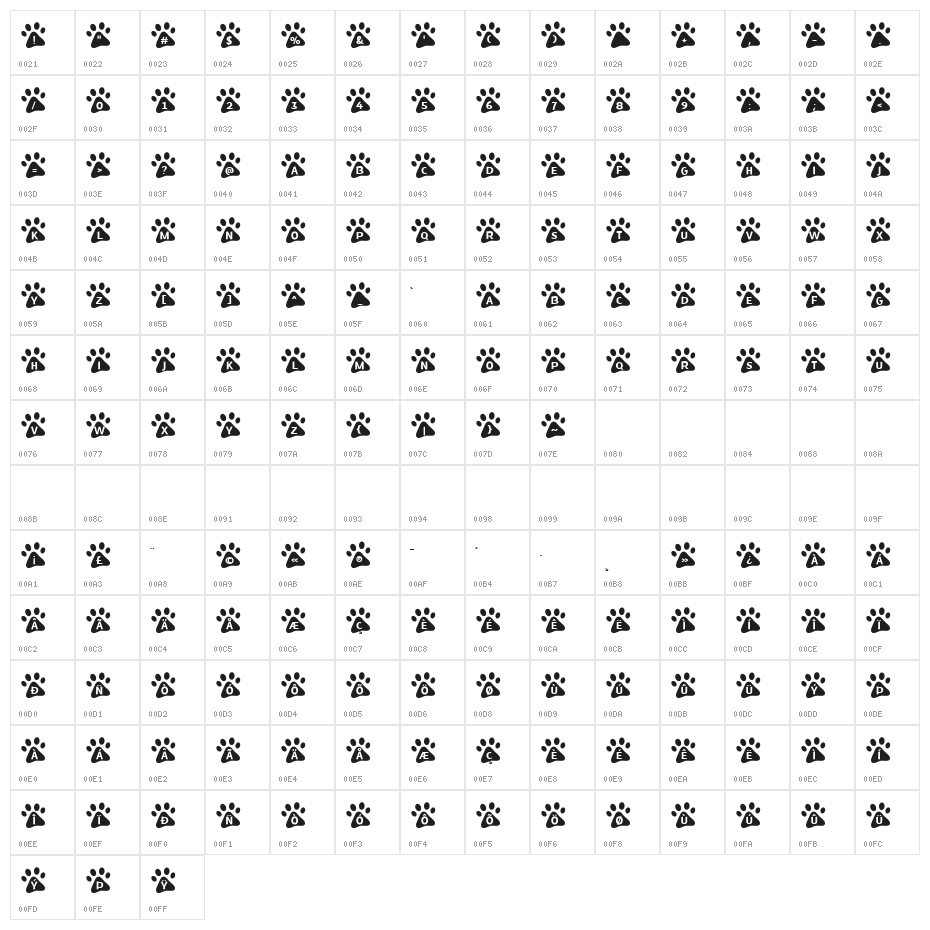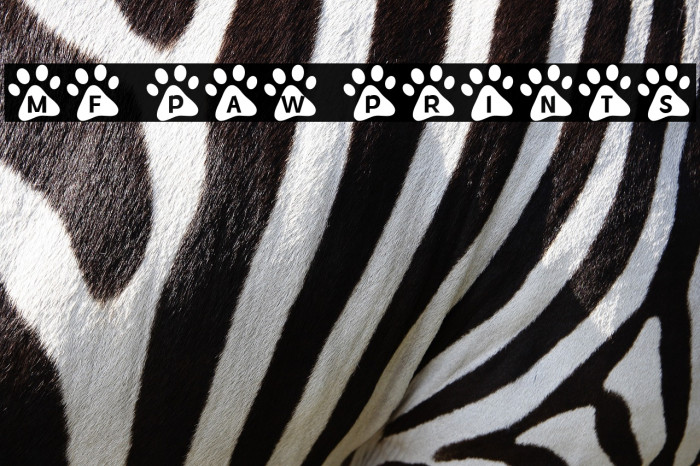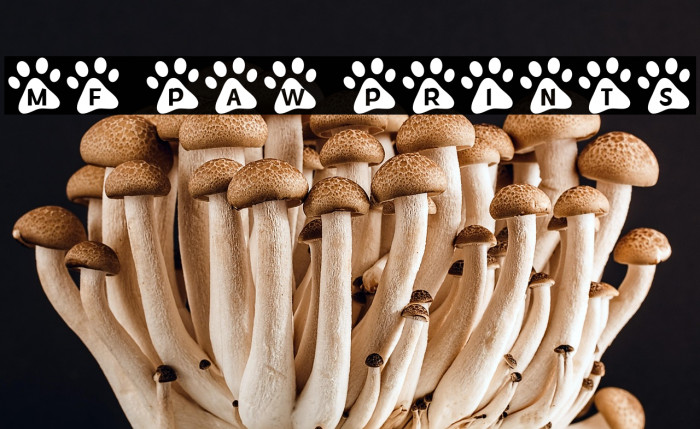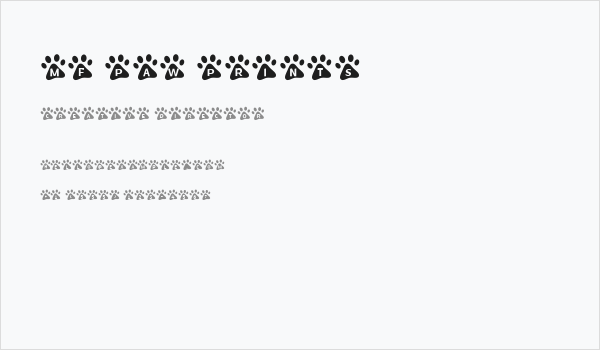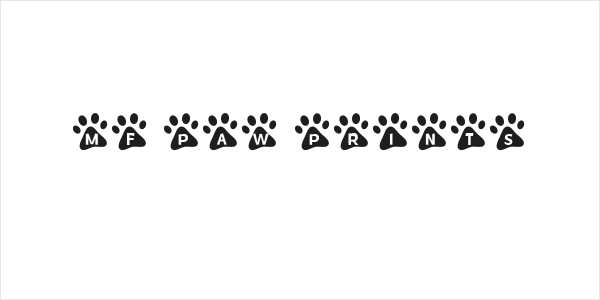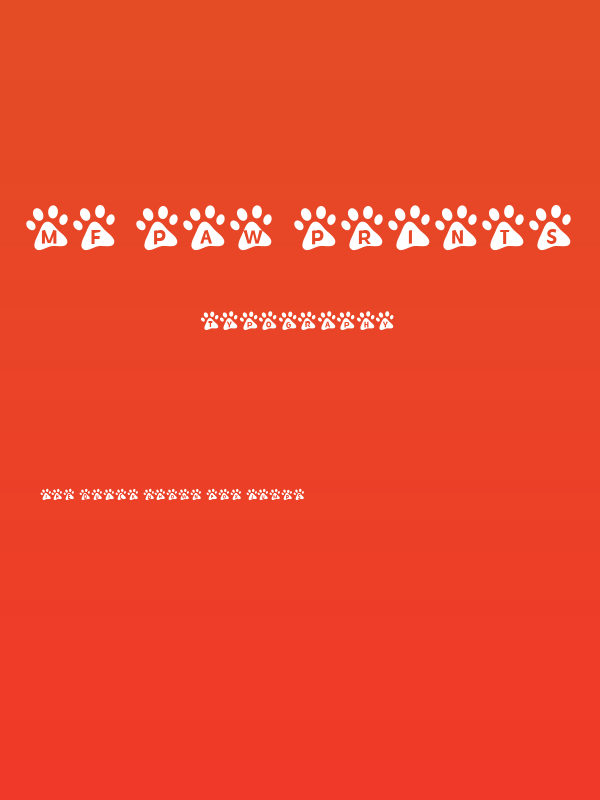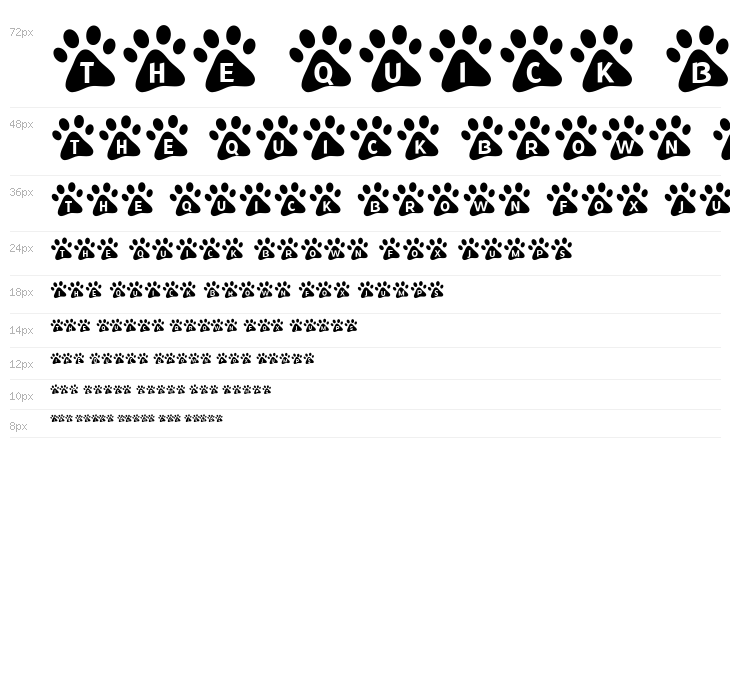
MF Paw Prints Font
MF Paw Prints Description
This playful and decorative font features characters embedded within paw print shapes, creating a whimsical and animal-friendly aesthetic. Each letter and number is centered within a bold, black paw print, making it ideal for designs that require a fun and engaging look. The font maintains consistent sizing and alignment, ensuring readability while emphasizing its unique style. The inclusion of special characters allows for versatile use across various projects. Its distinct design is perfect for pet-related themes or any project that aims to convey a sense of playfulness and creativity.
| Proposed Projects | Ideal for pet store branding, children's books, animal shelter promotions, and playful event invitations. |